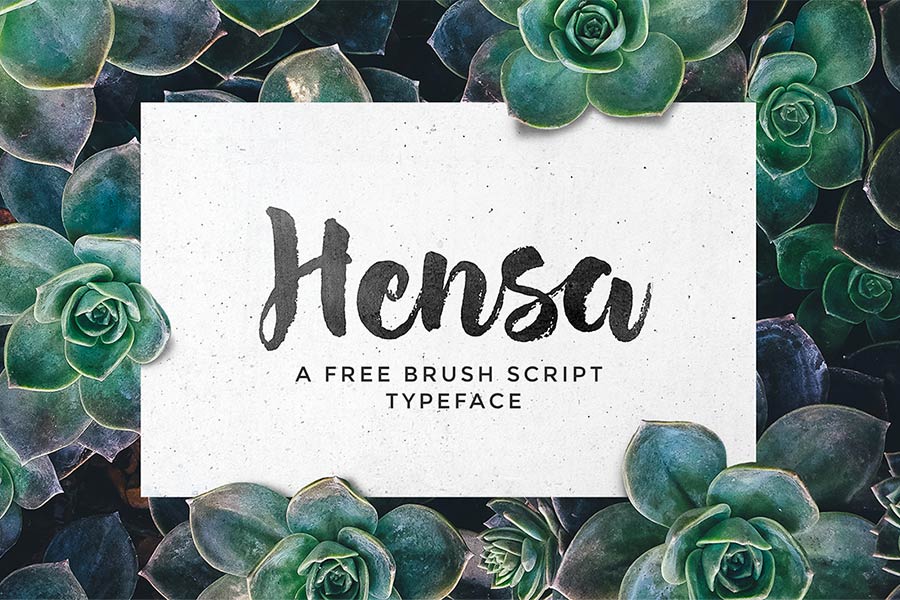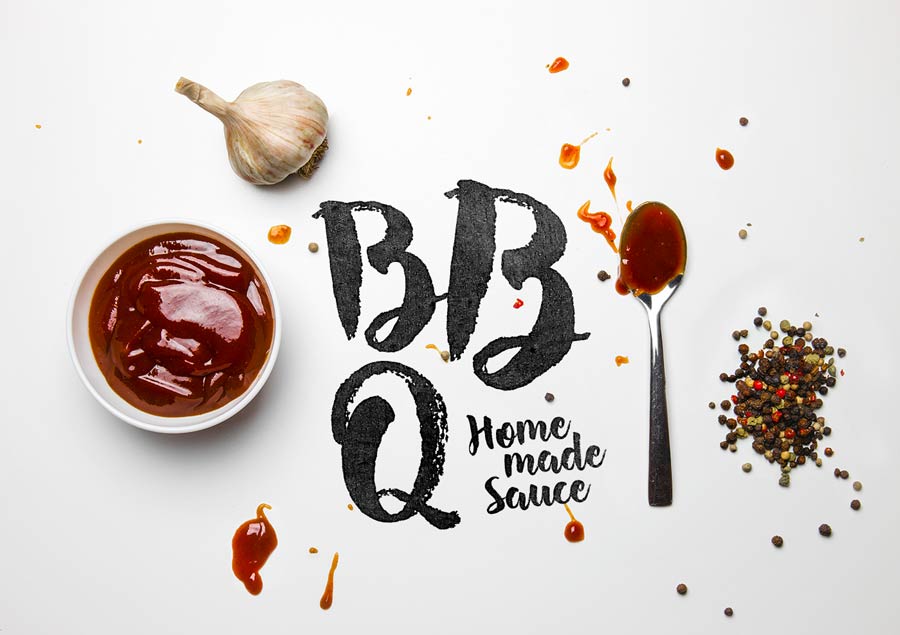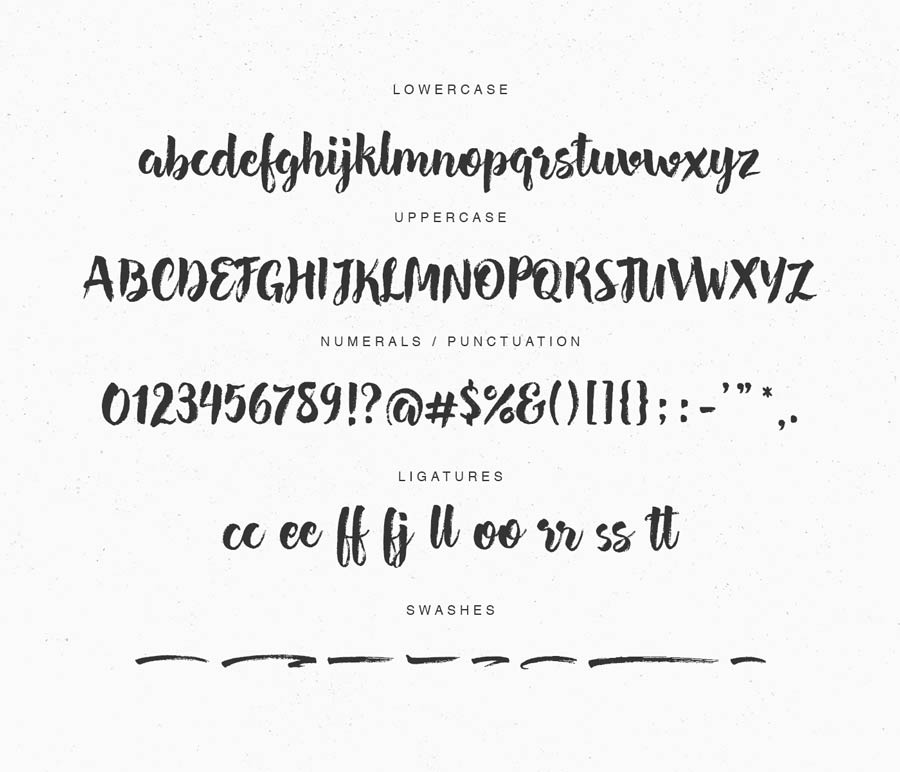
When comes to free handdrawn brush font, Hensa definitely stood out as one of the best out there. Hensa, a carefully hand-painted brush script typeface, is ideal for logo, quotes, packaging designs and also greeting cards. Hensa comes with the usual latin letters and also several swashes too.